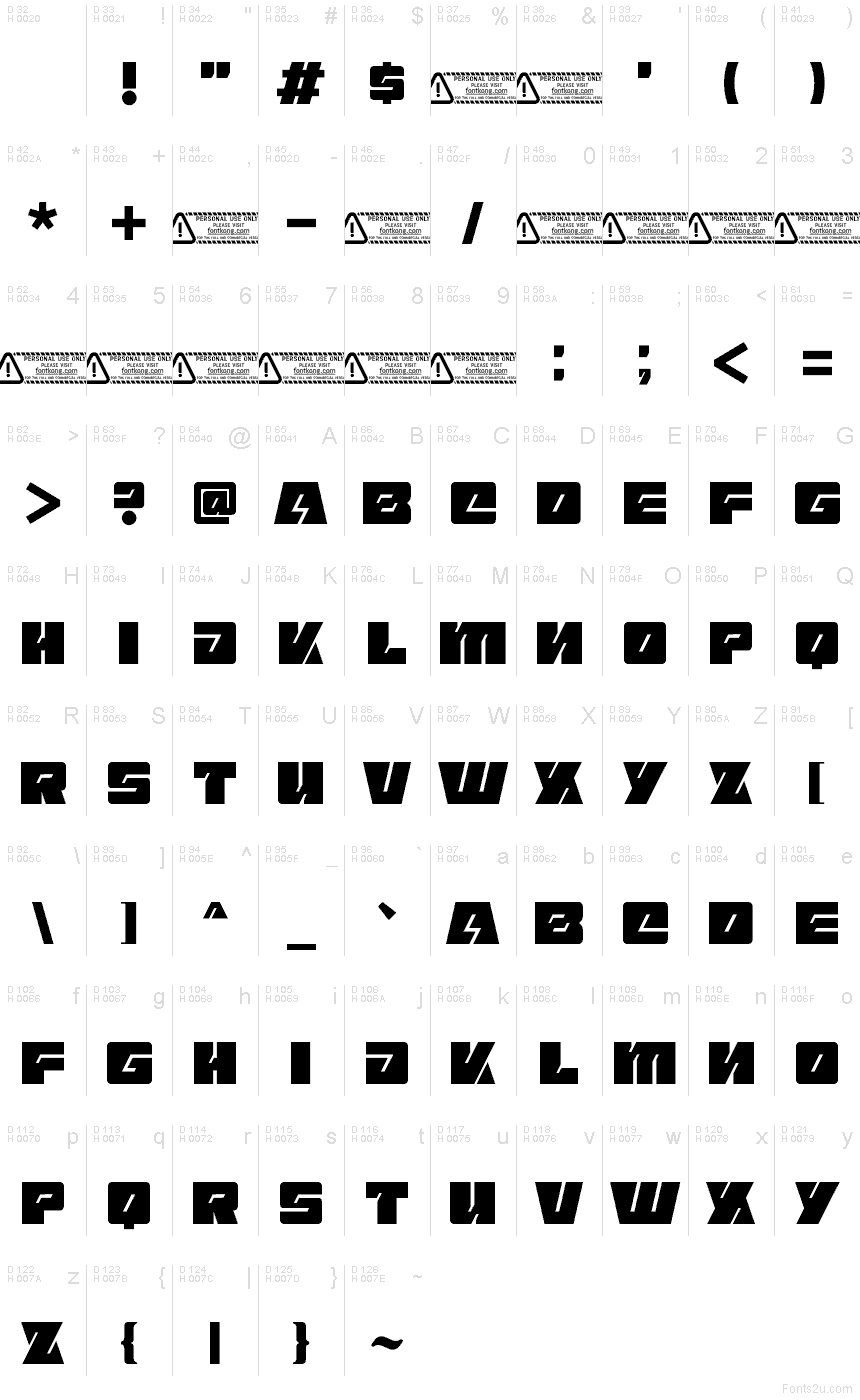
Liberis PERSONAL USE ONLY!
Liberis font is a bold expanded display typeface designed by Kong Font as 8 TTF files with letters and numbers. The contemporary self-expressionist style provides a uniquely refreshing experience through its geometric textures, angular extremities and constant aesthetic clash. The industrial theme make it the perfect piece to reflect your unique capabilities in professional careers which require energy and daring.